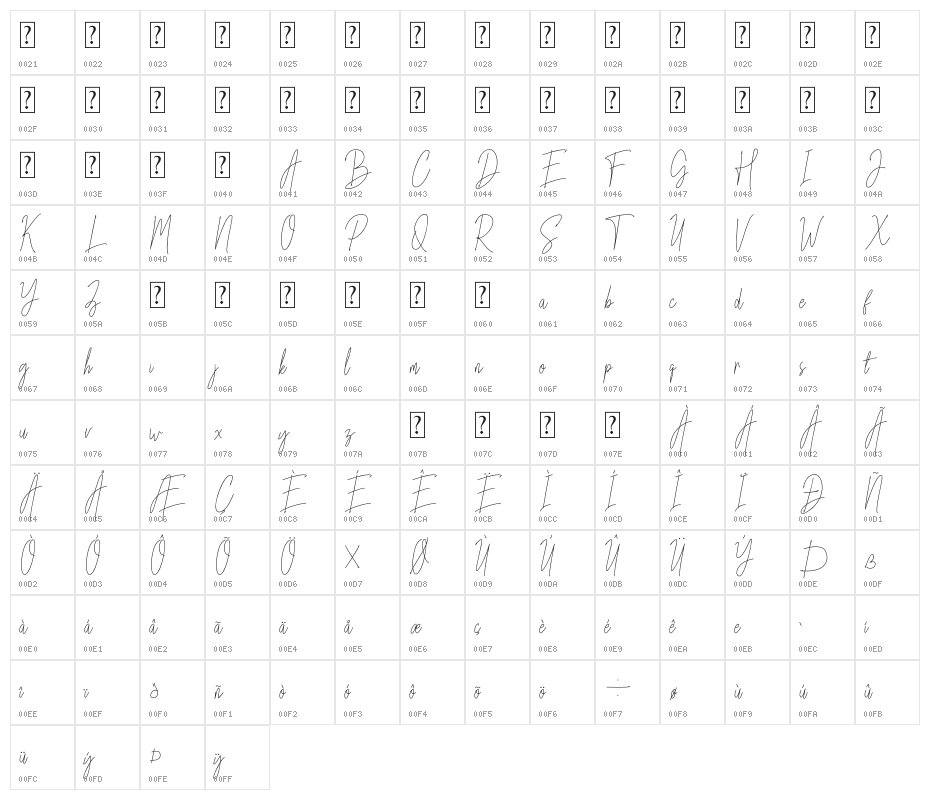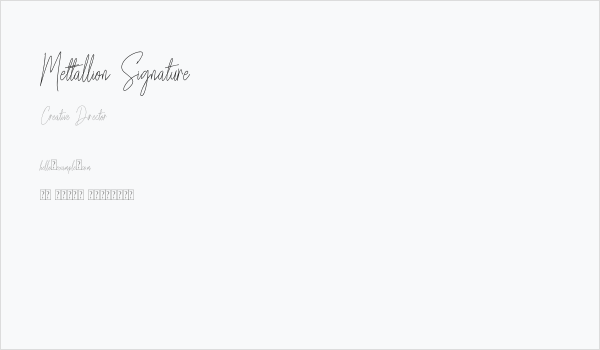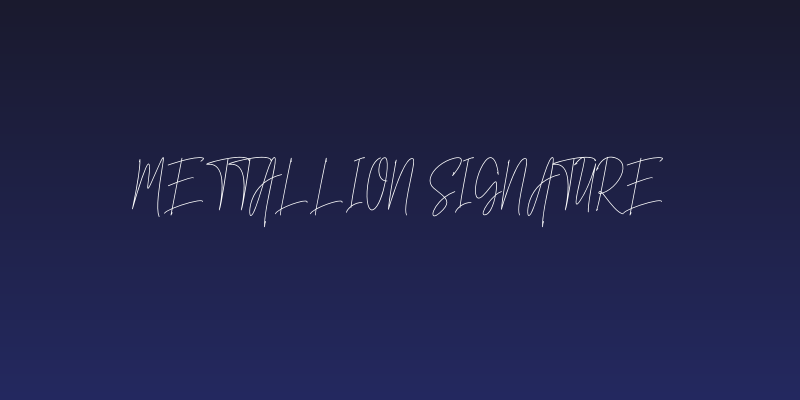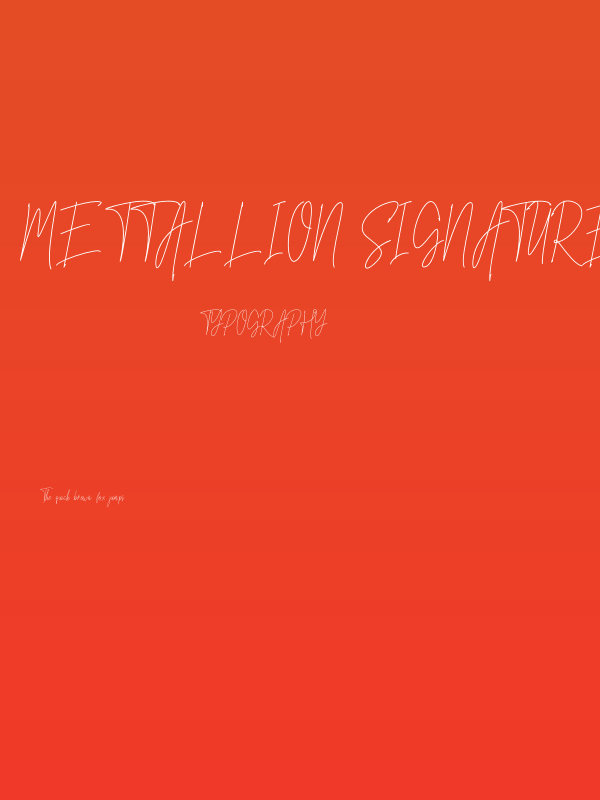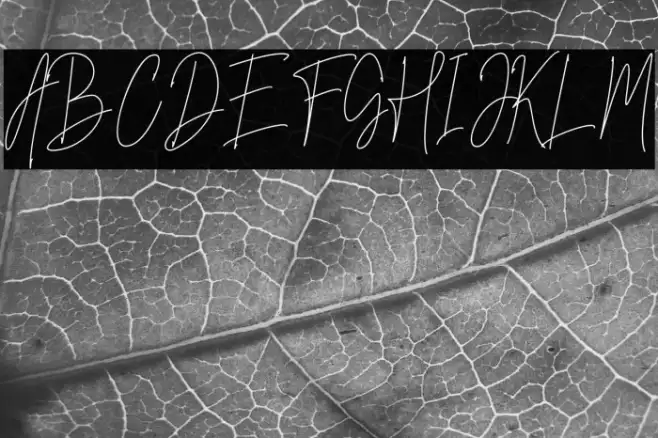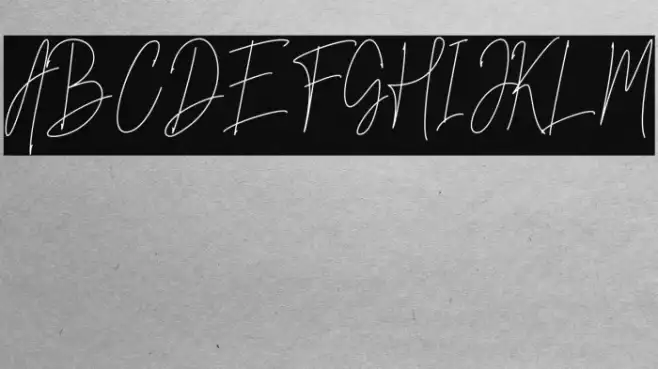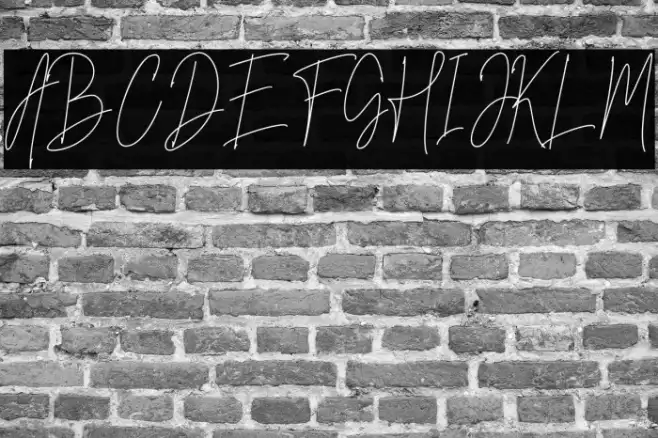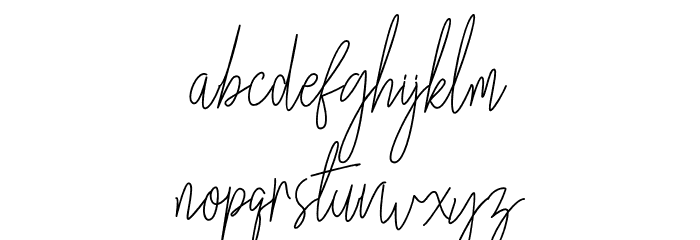
Mettallion Signature Font
Mettallion Signature Description
This font exhibits a flowing, elegant script style that mimics the fluidity of a handwritten signature. The uppercase letters are tall and slender, with a slight slant that adds a dynamic quality to the text. The lowercase letters maintain a consistent flow, with smooth connections between characters that enhance the cursive appearance. The overall design is sophisticated and stylish, making it suitable for projects that require a personal touch. The font's thin strokes and delicate curves contribute to its refined aesthetic, while the consistent line weight ensures readability. This font is ideal for creating a sense of elegance and class in any design.
| Overall Style | Elegant, Sophisticated |
| Proposed Projects | Perfect for wedding invitations, personal branding, elegant logos, and upscale packaging. |